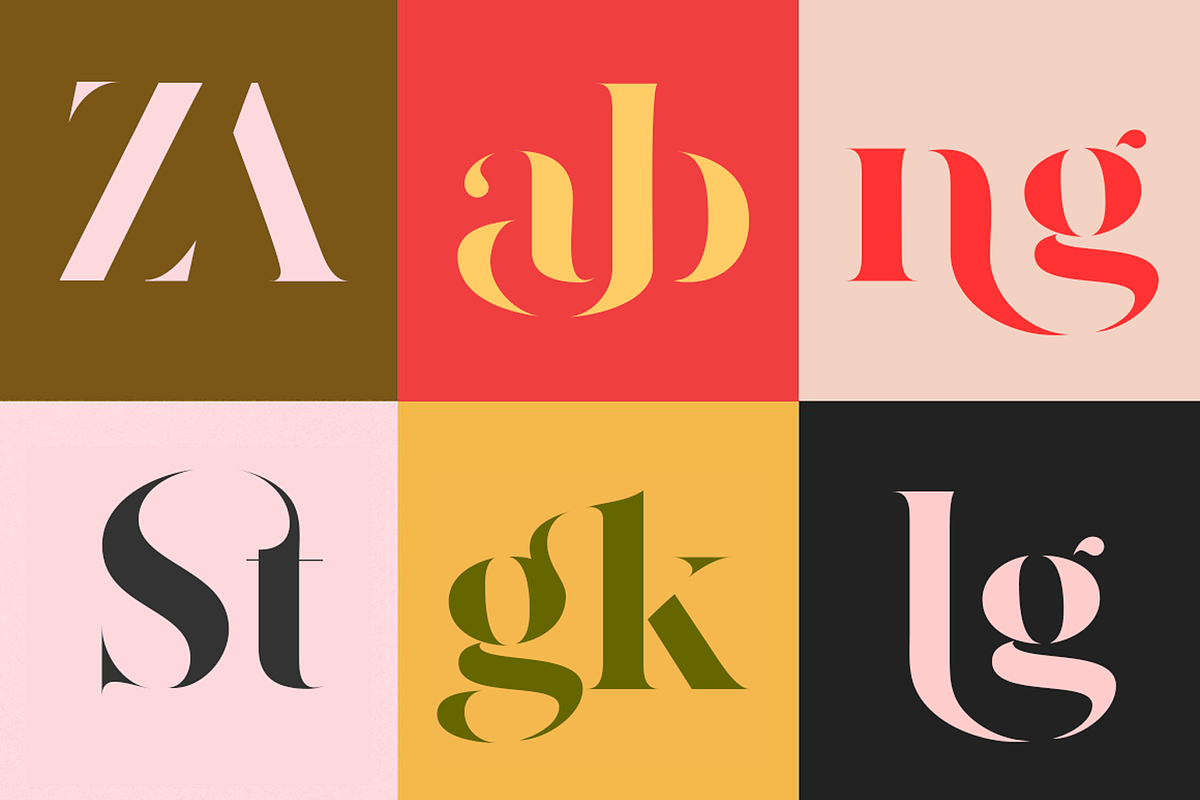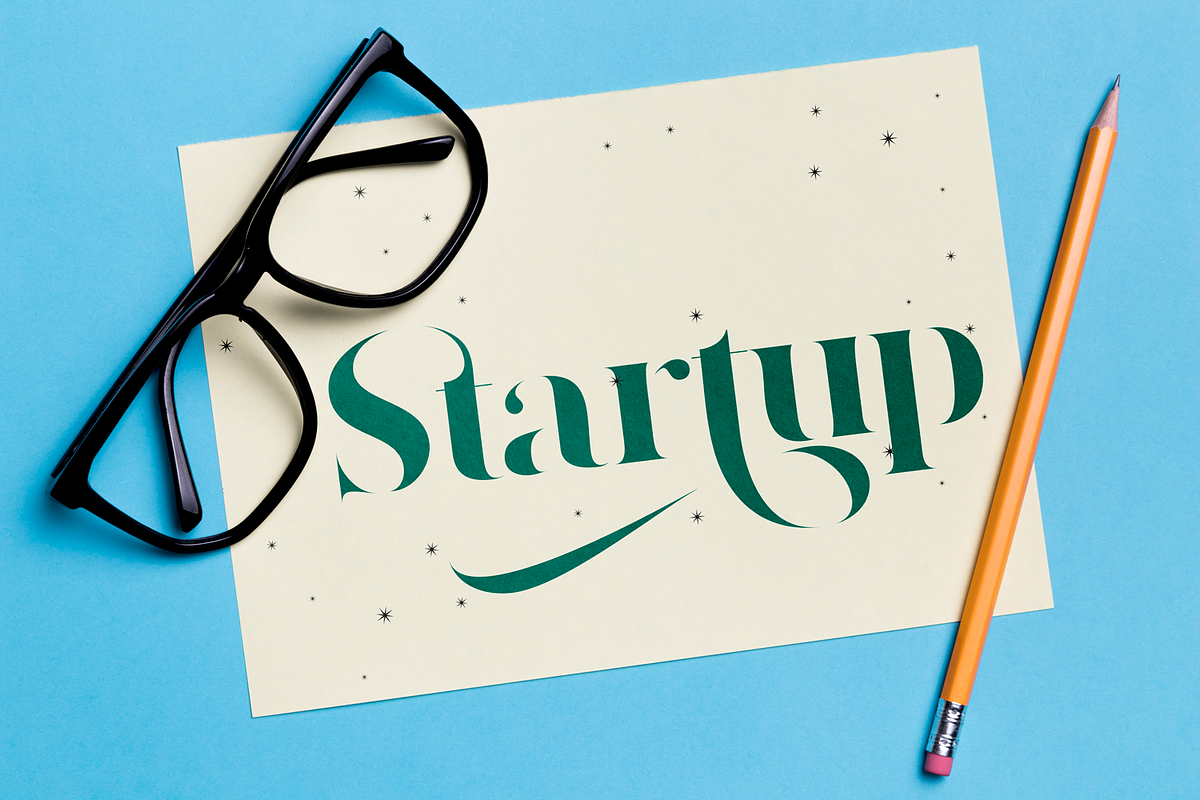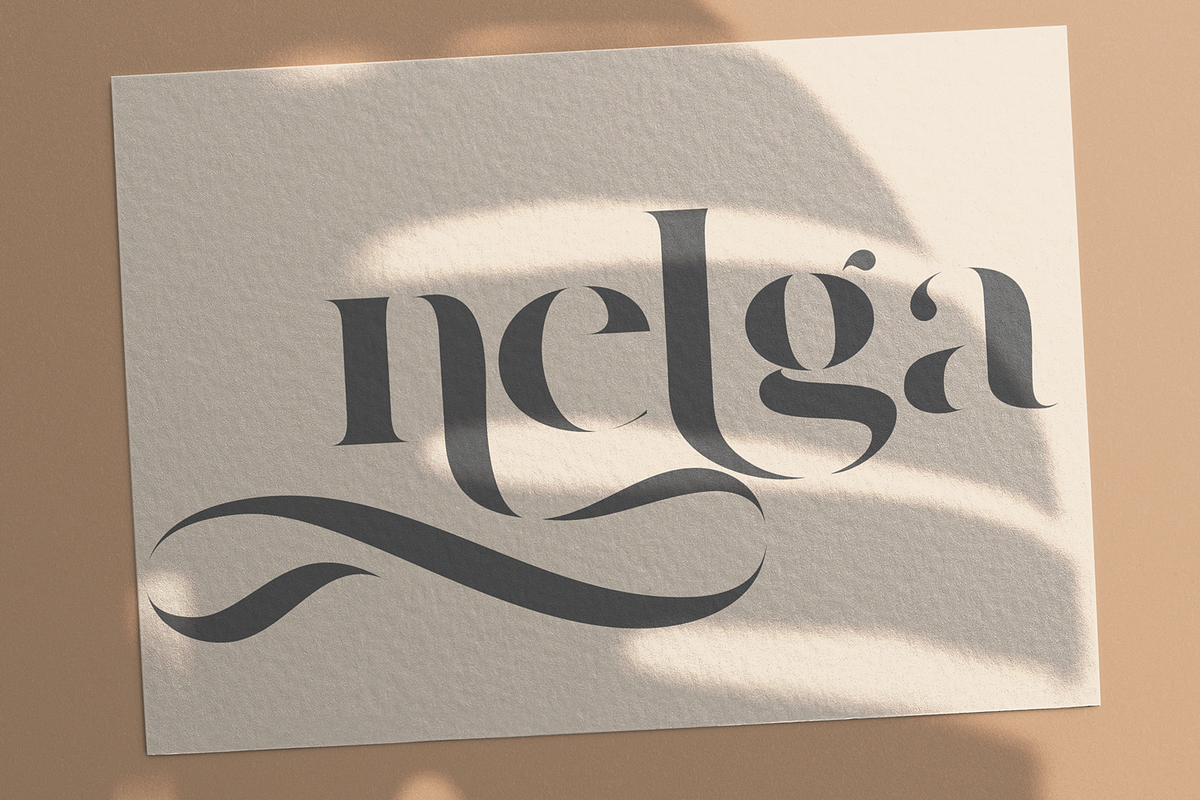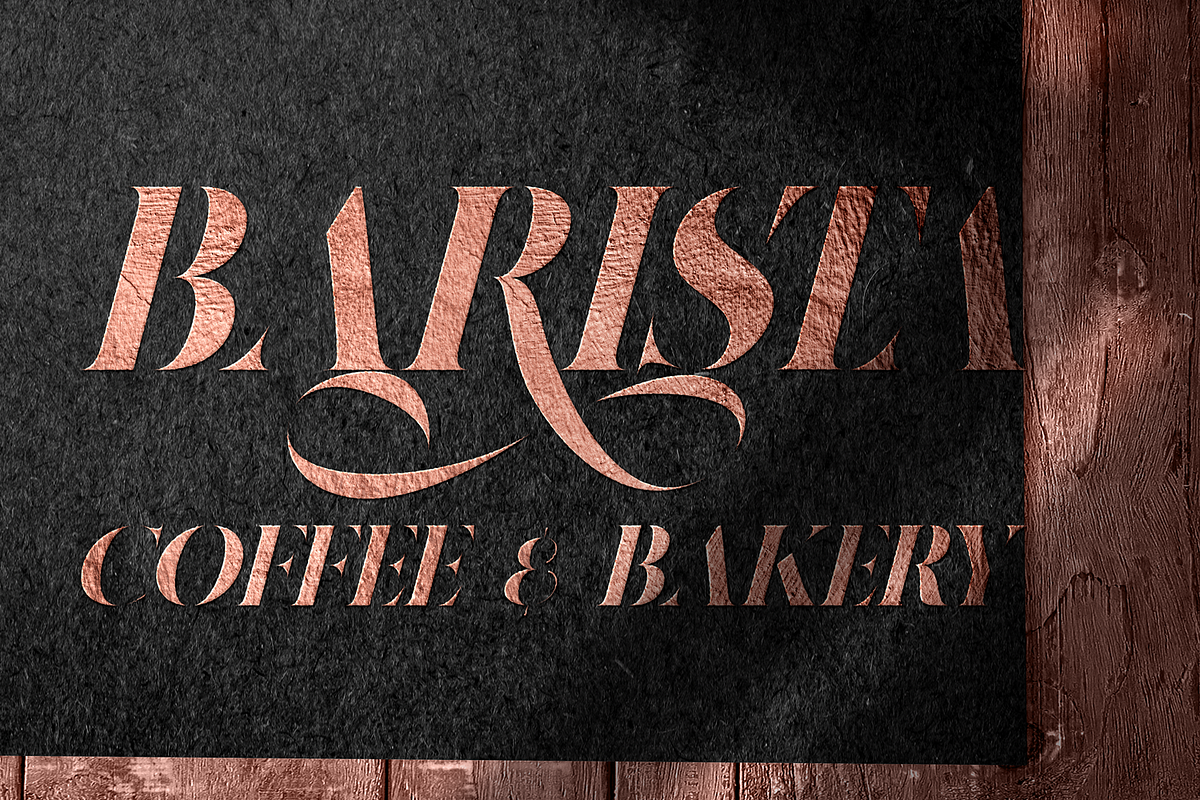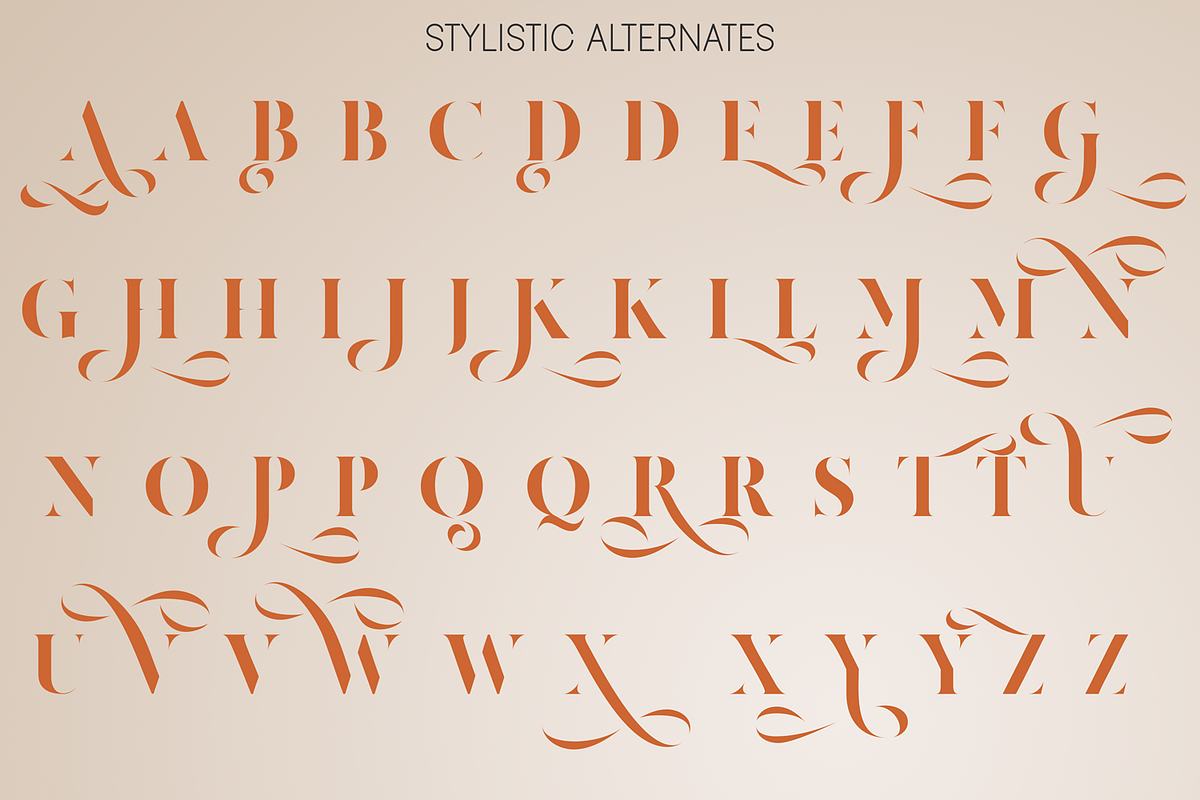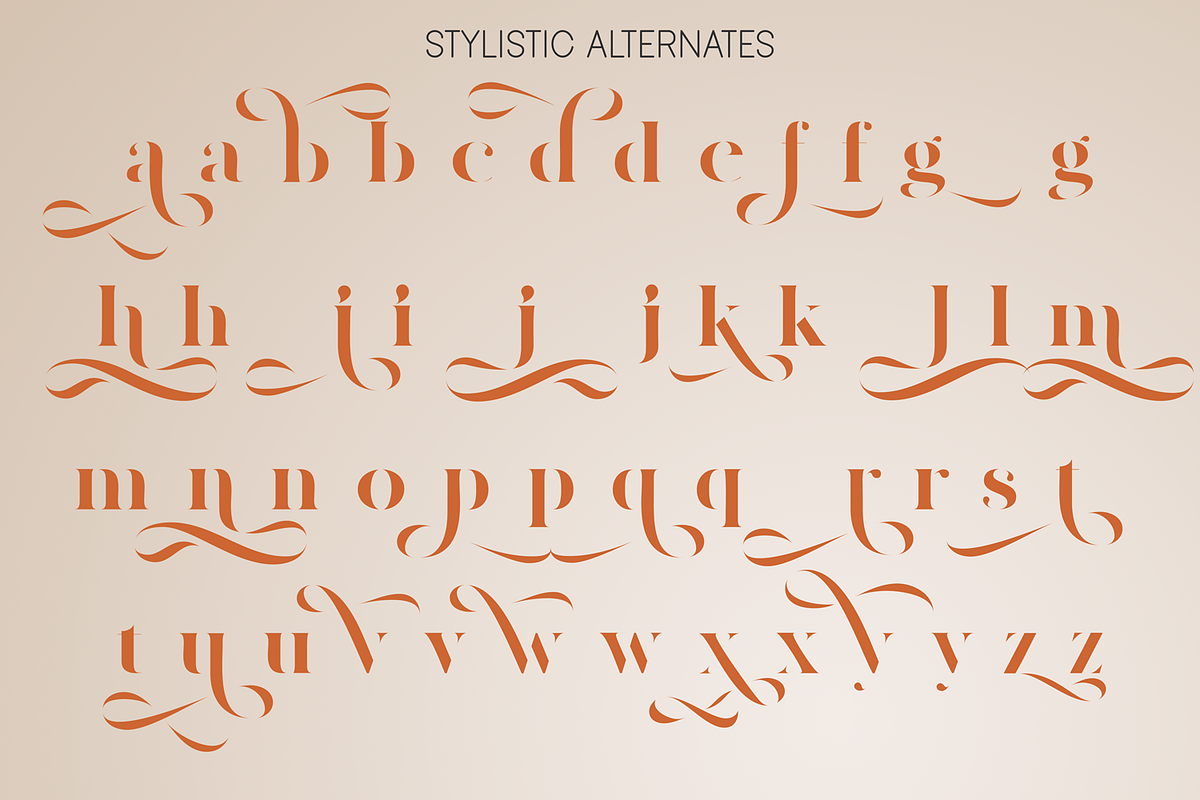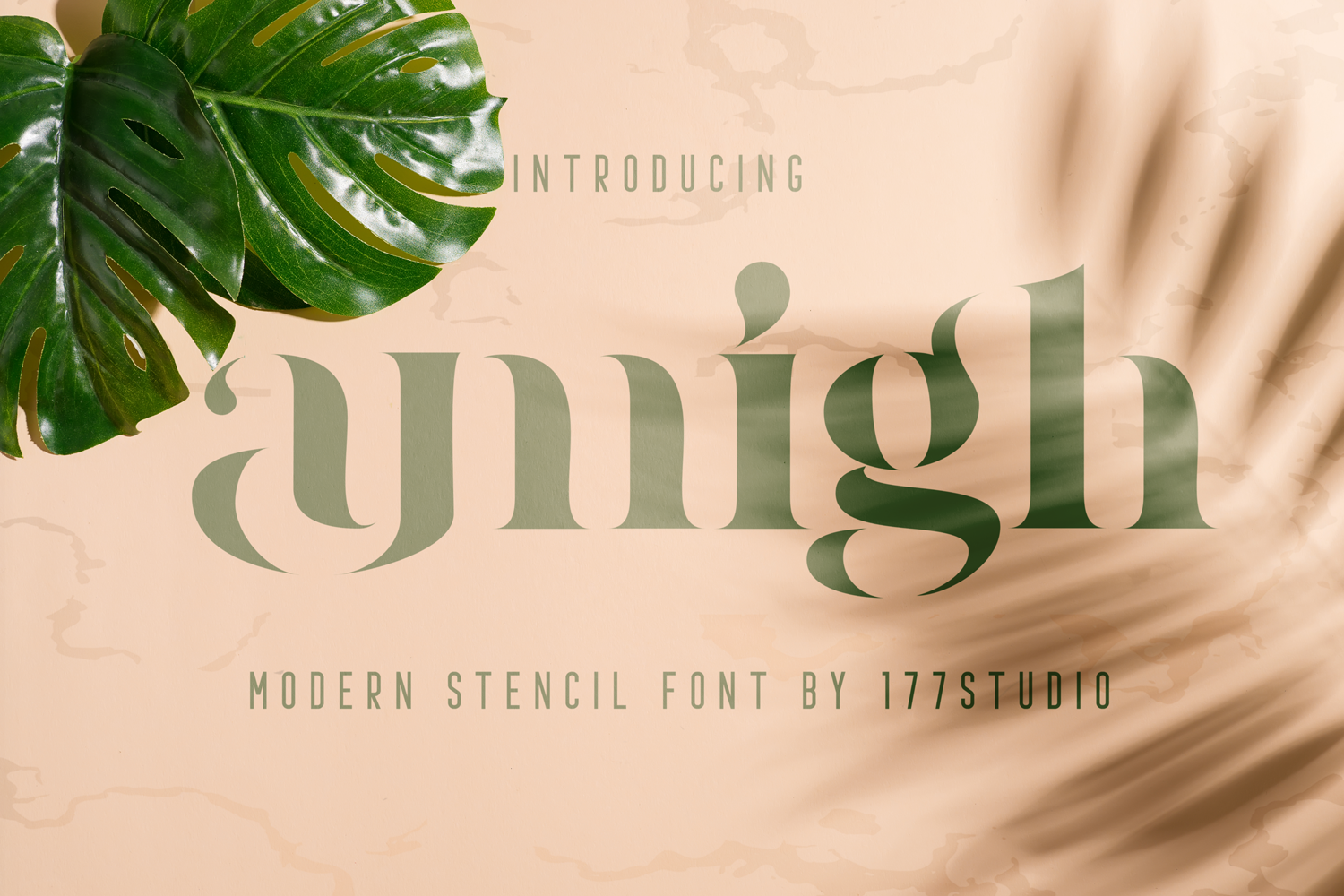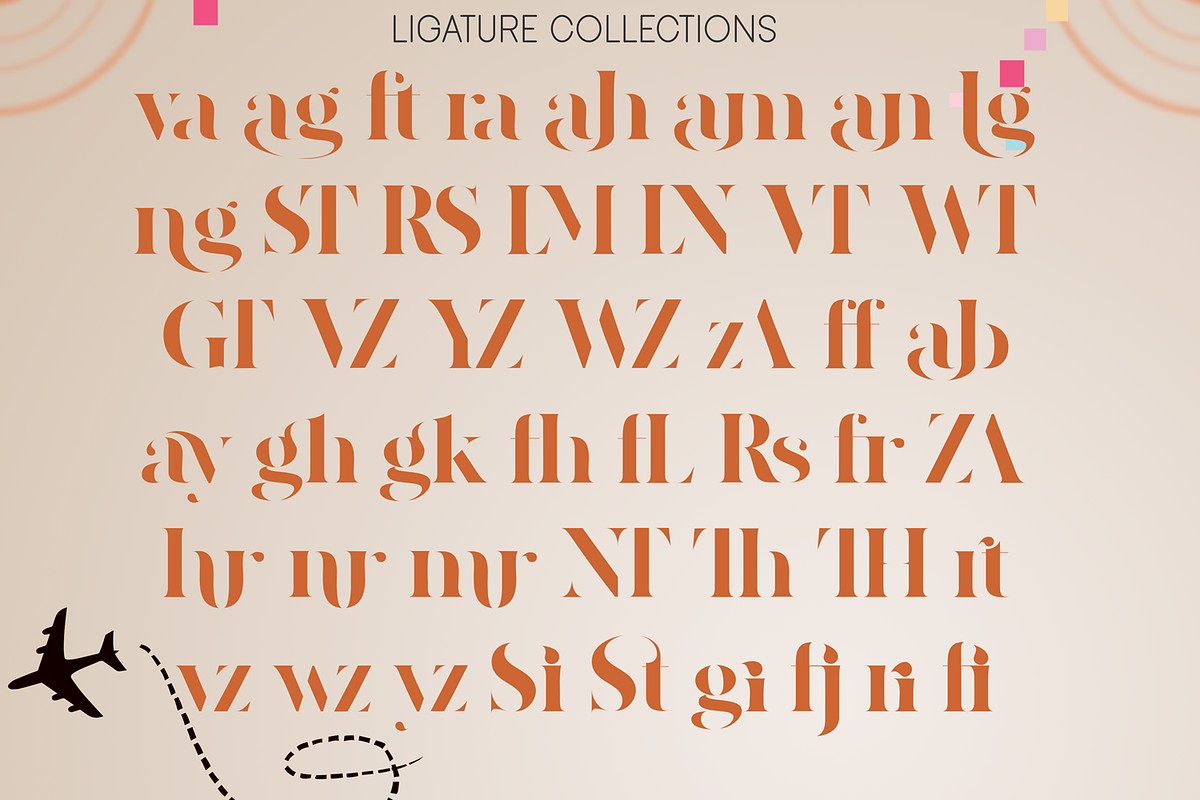
Amigh - Modern Serif Font
Amigh — Modern Serif Font is a very feminine and very legible serif stencil font, delicacy and elegance are the words that best characterize this font. It’s seduces the viewer in a subtle and elegant manner. That is perfect for blogging, fashion, art and much more.
To make it look more unique, here we prepared some ligatures: ST RS Rs LM LN GT VT WT VZ YZ WZ ZA zA NT TH Th Si St va ag ft ra ab ah am an ay lg ng ff gh gk fh fL fr hr nr mr nt vz wz yz gi fj ri fi
Include Fancy Style on Every Uppercase and Some Lowercase